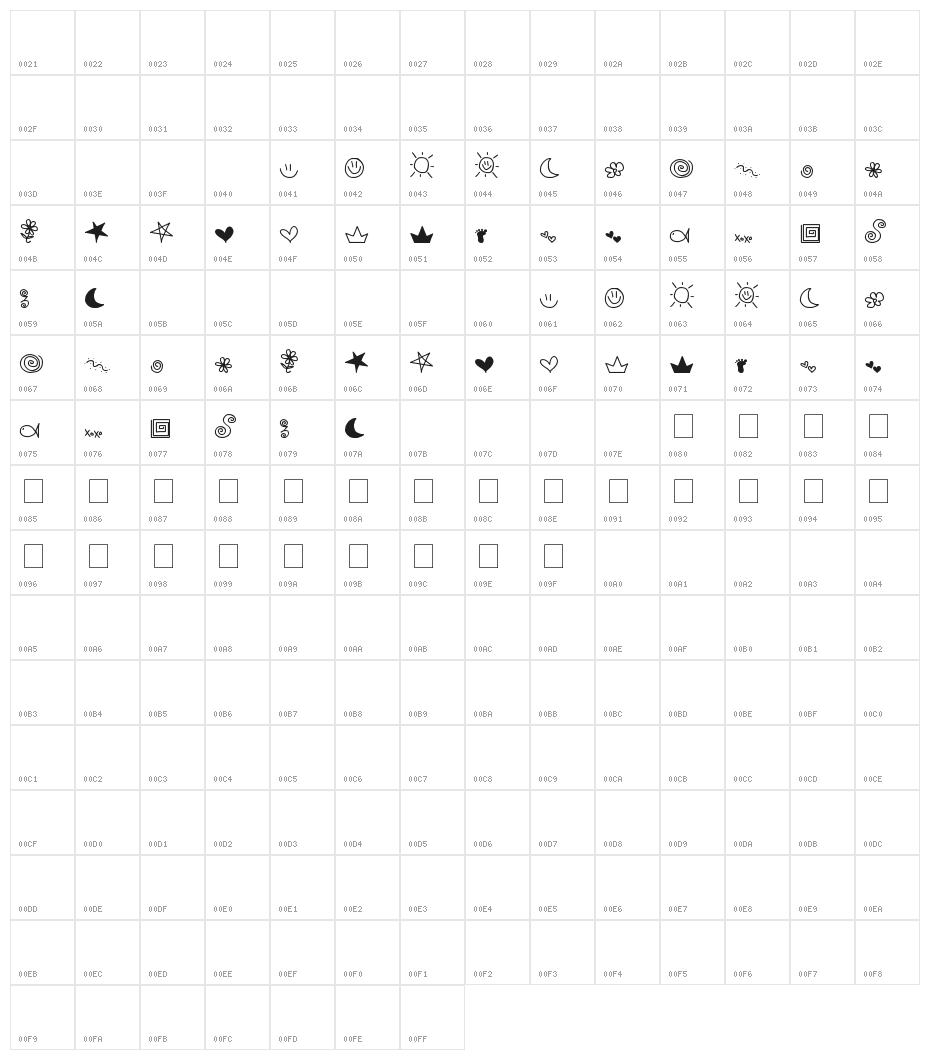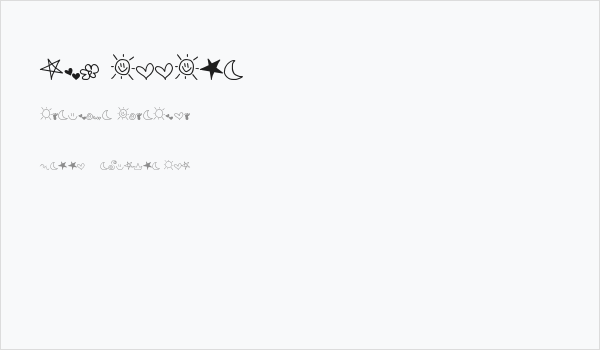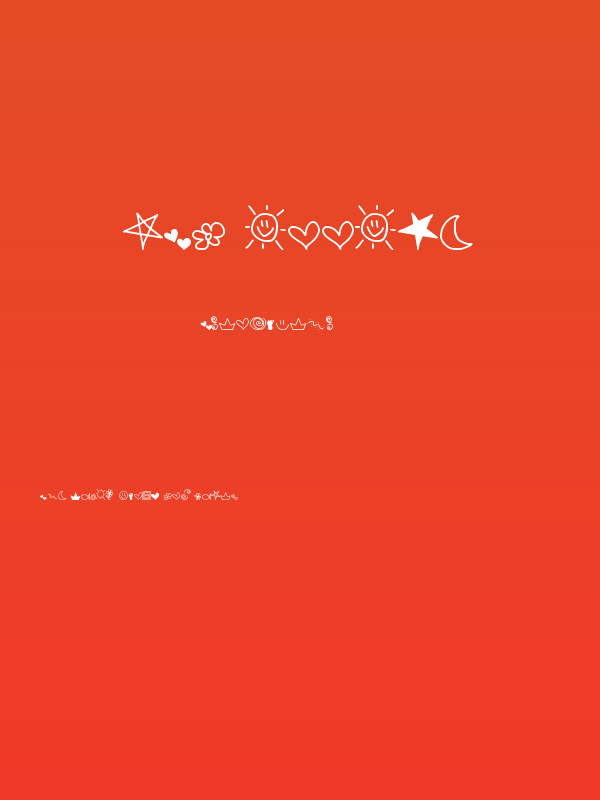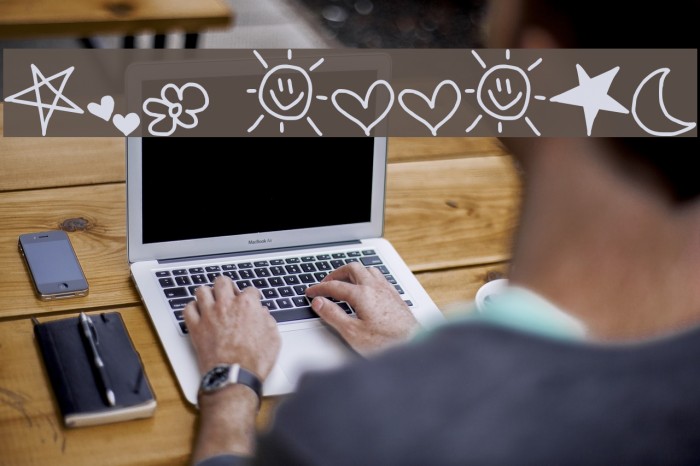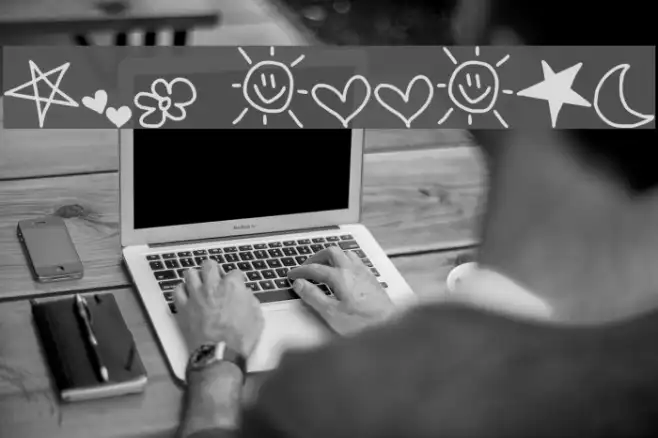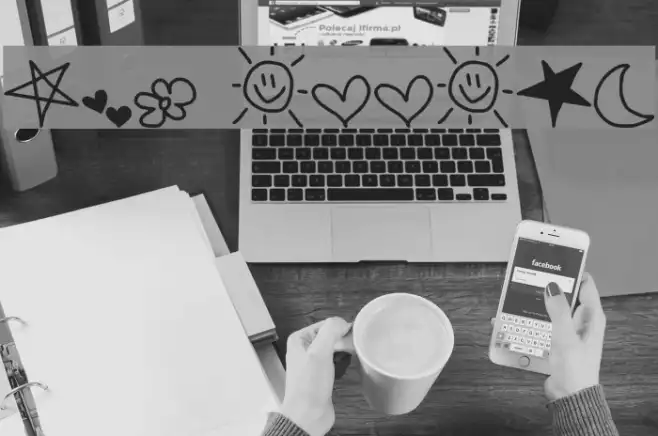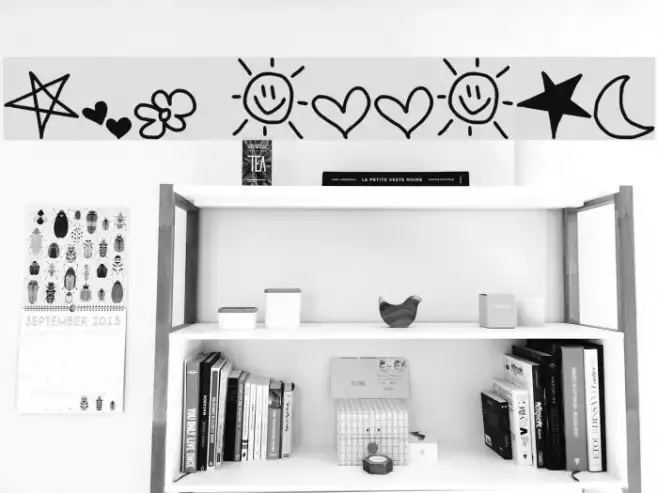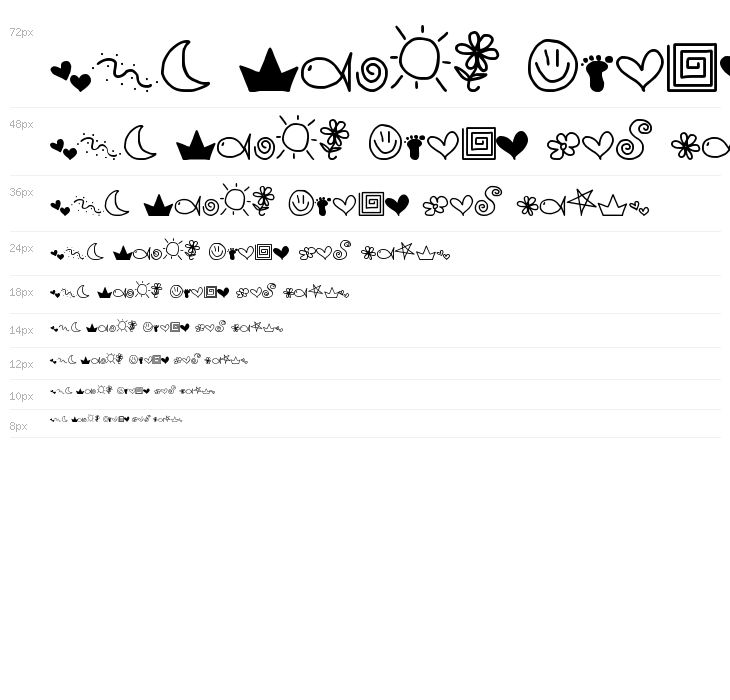
MTF Doodle Font
MTF Doodle Description
This set of doodle-like symbols features a playful and whimsical style, incorporating a variety of hand-drawn elements such as smiley faces, suns, moons, flowers, spirals, stars, hearts, crowns, footprints, fish, and abstract shapes. Each symbol is crafted with a casual, freeform aesthetic, giving the impression of being sketched by hand. The lines are bold and consistent, providing a clear and distinct appearance for each character. These symbols are perfect for adding a touch of fun and creativity to any project, offering a unique way to convey emotions and themes through visual elements.
| Overall Style | Whimsical, Playful |
| Use Case | Decorative elements, Creative designs |
| Proposed Projects | Ideal for children's books, greeting cards, scrapbooking, and creative design projects. |